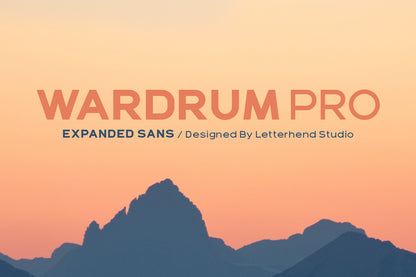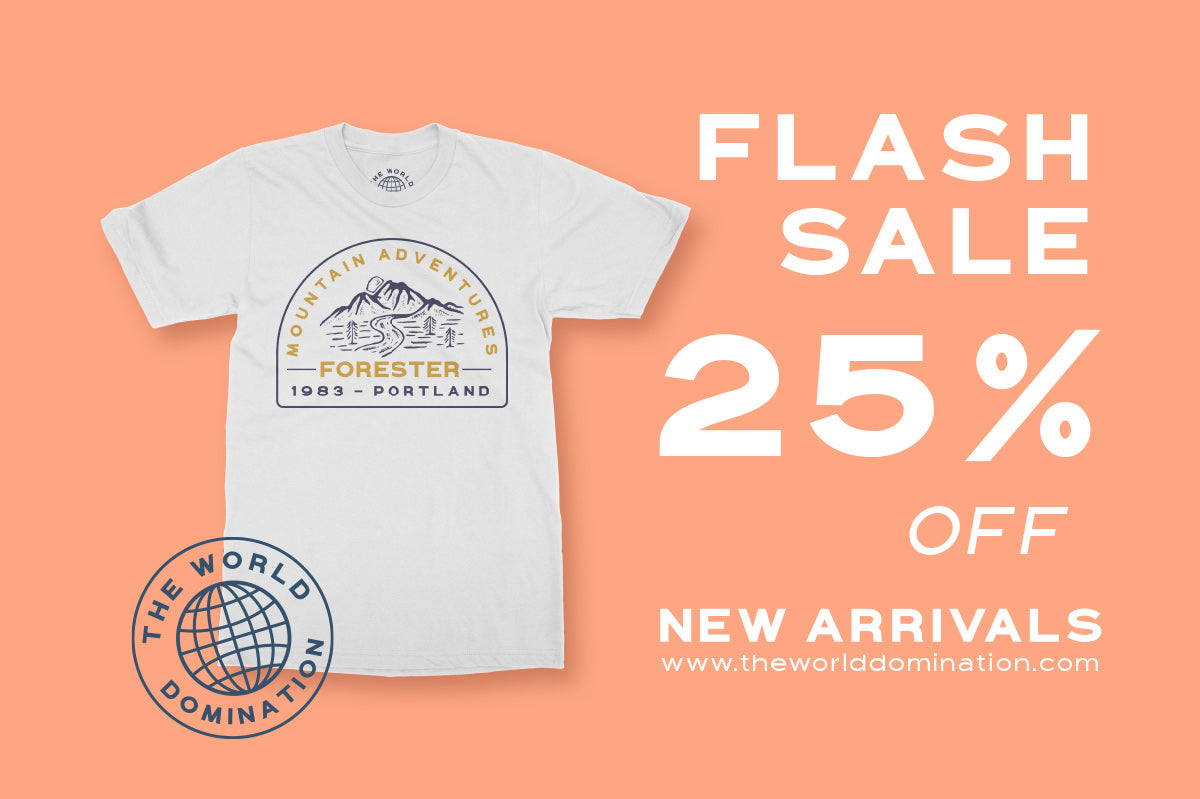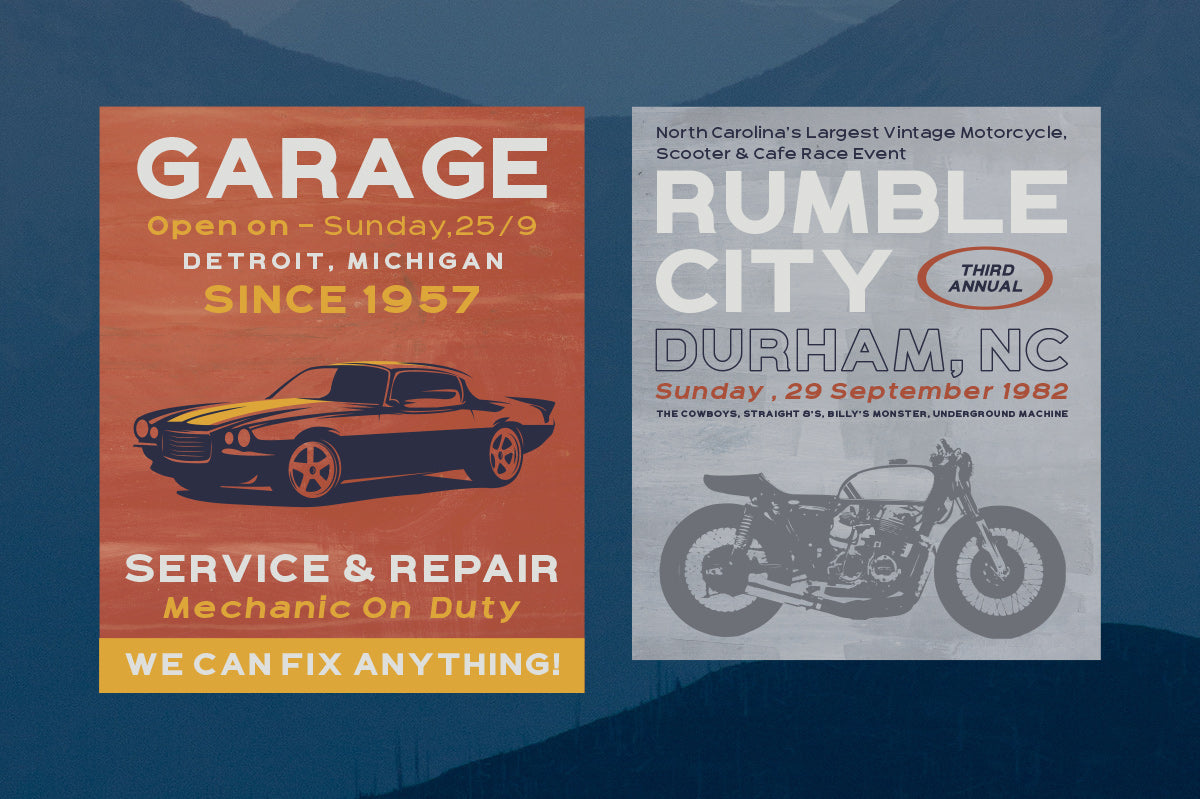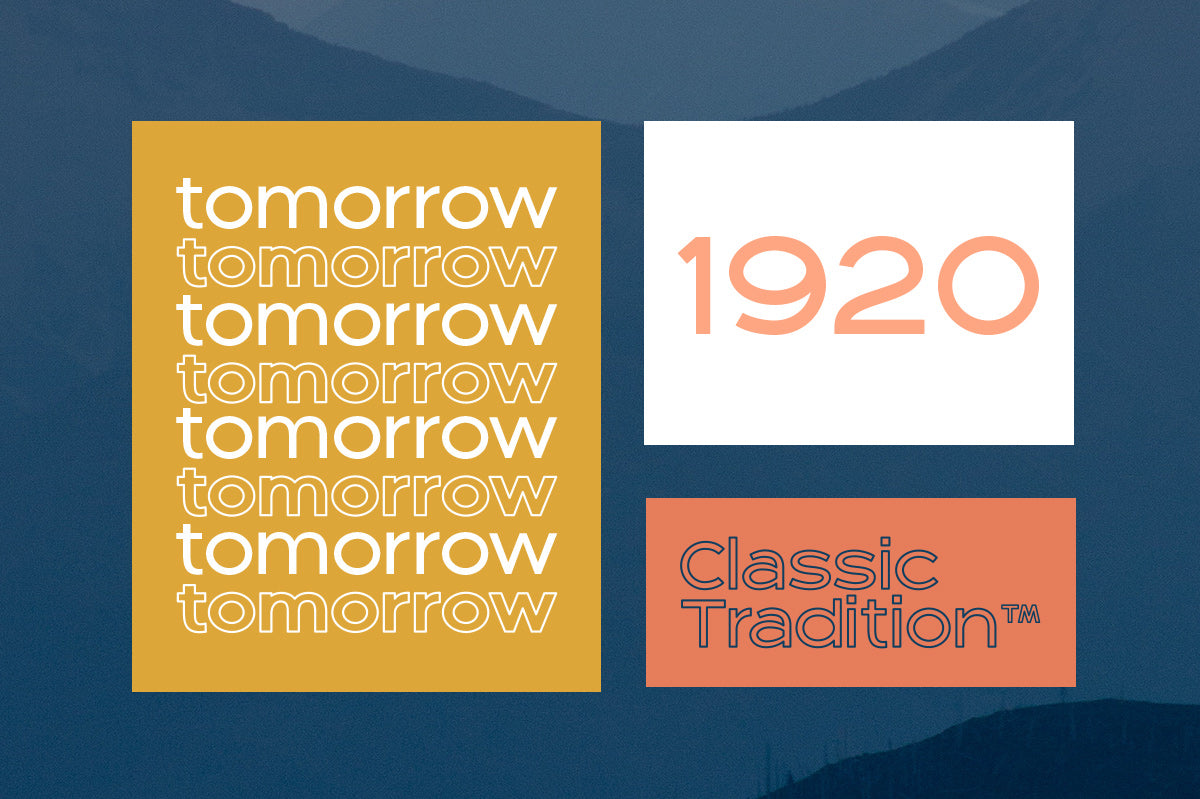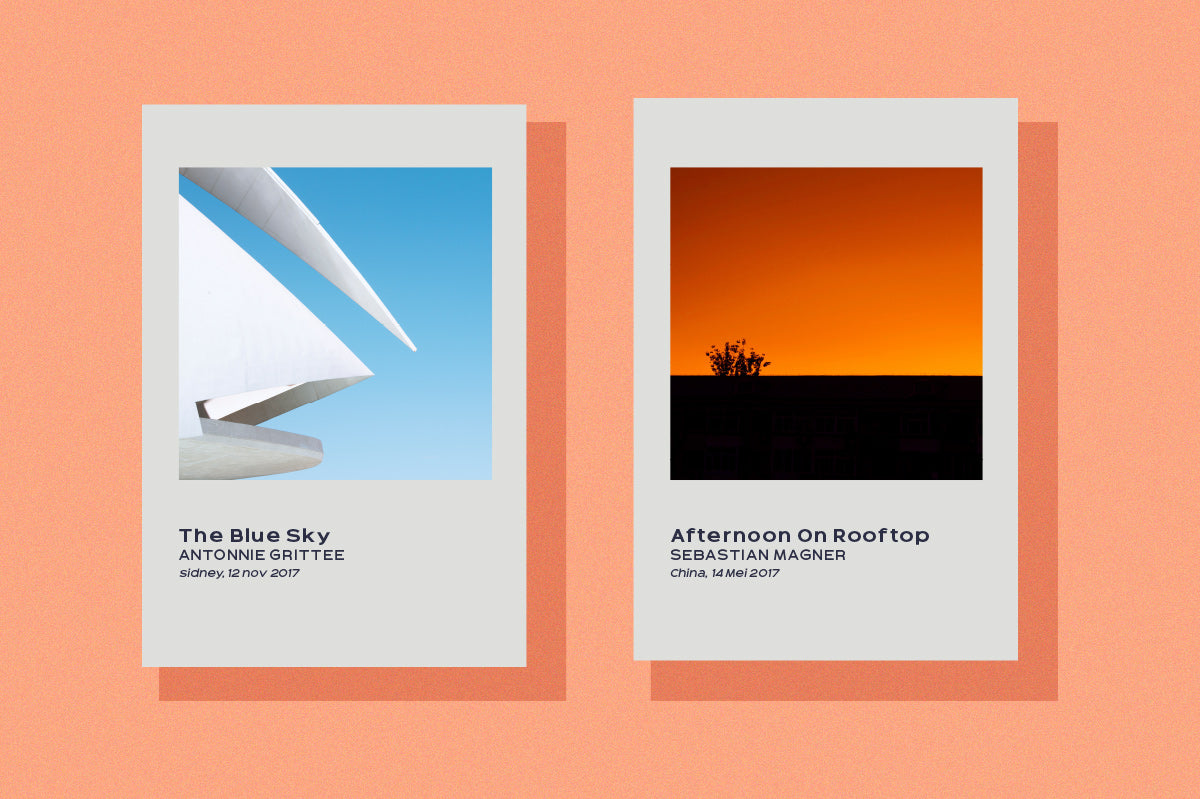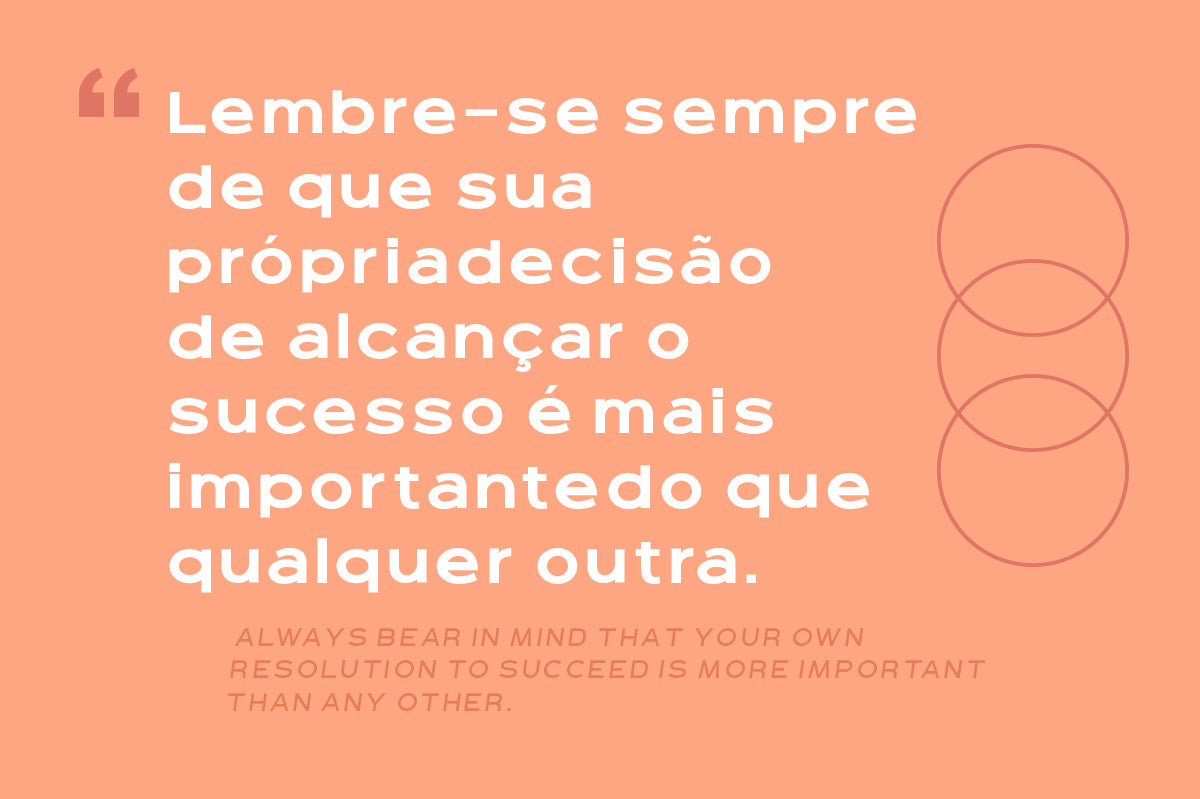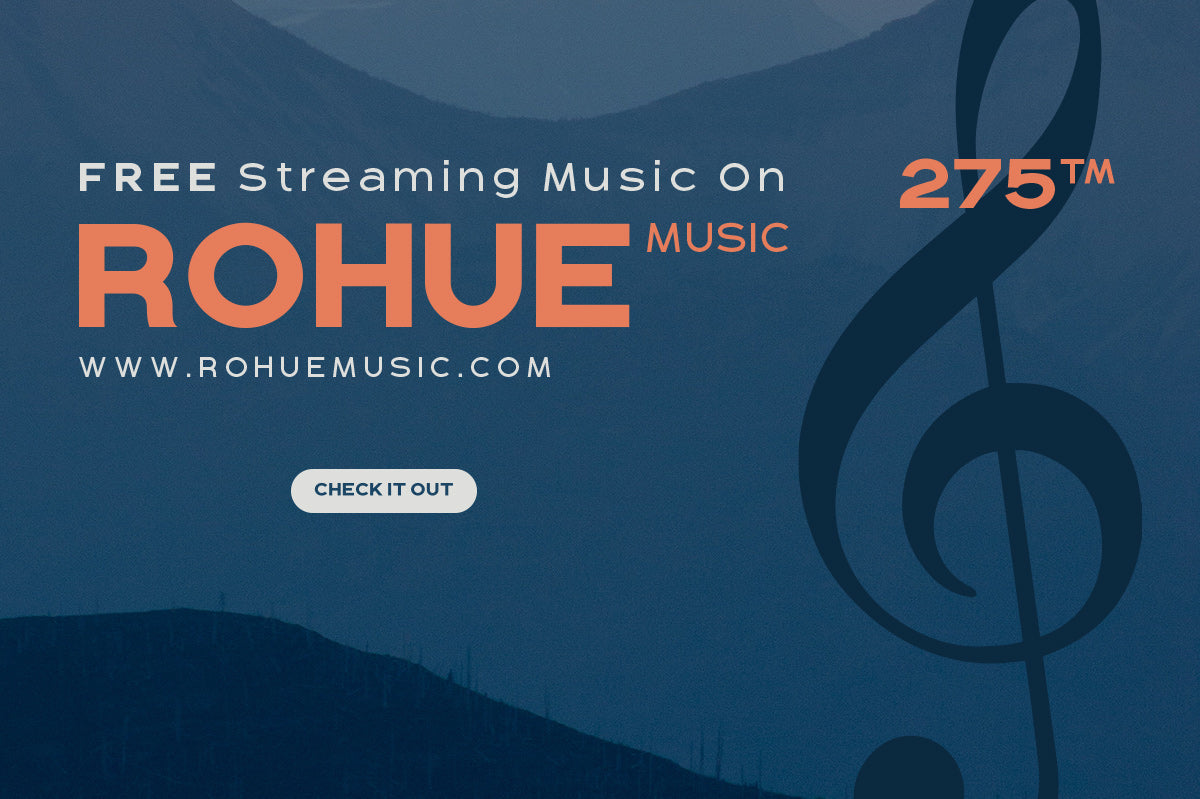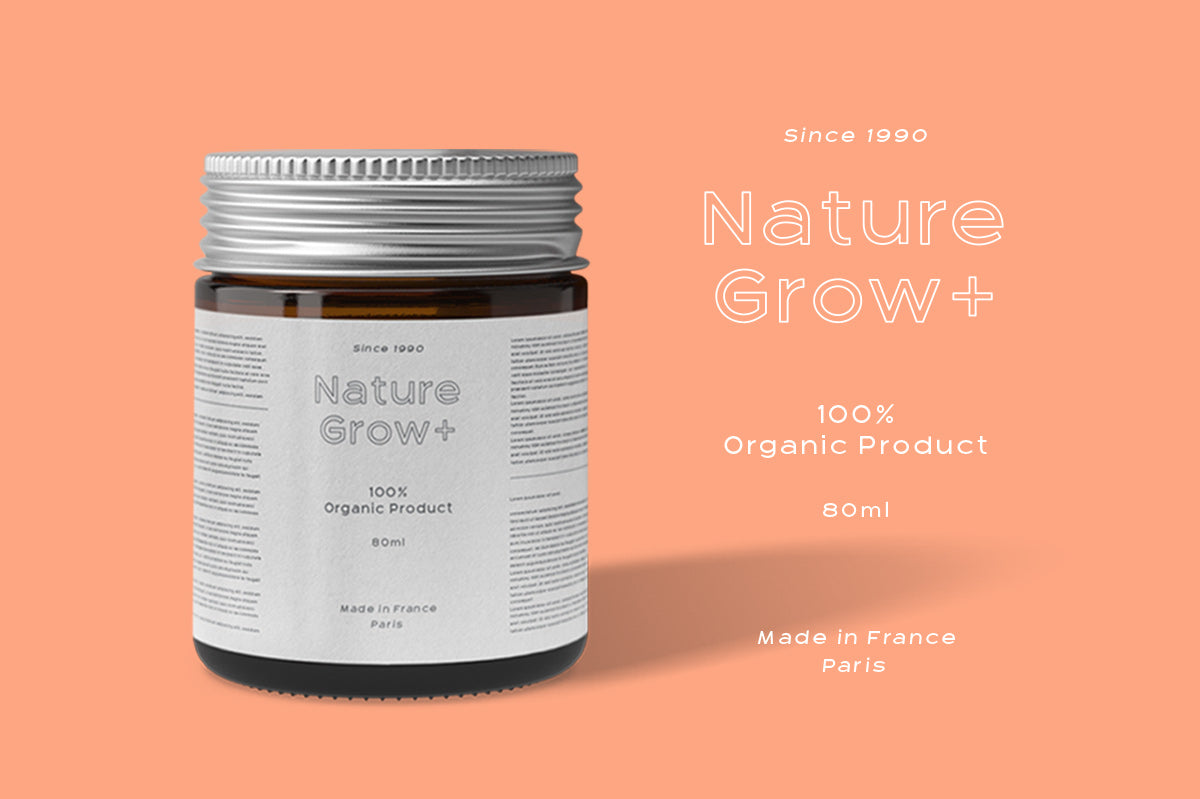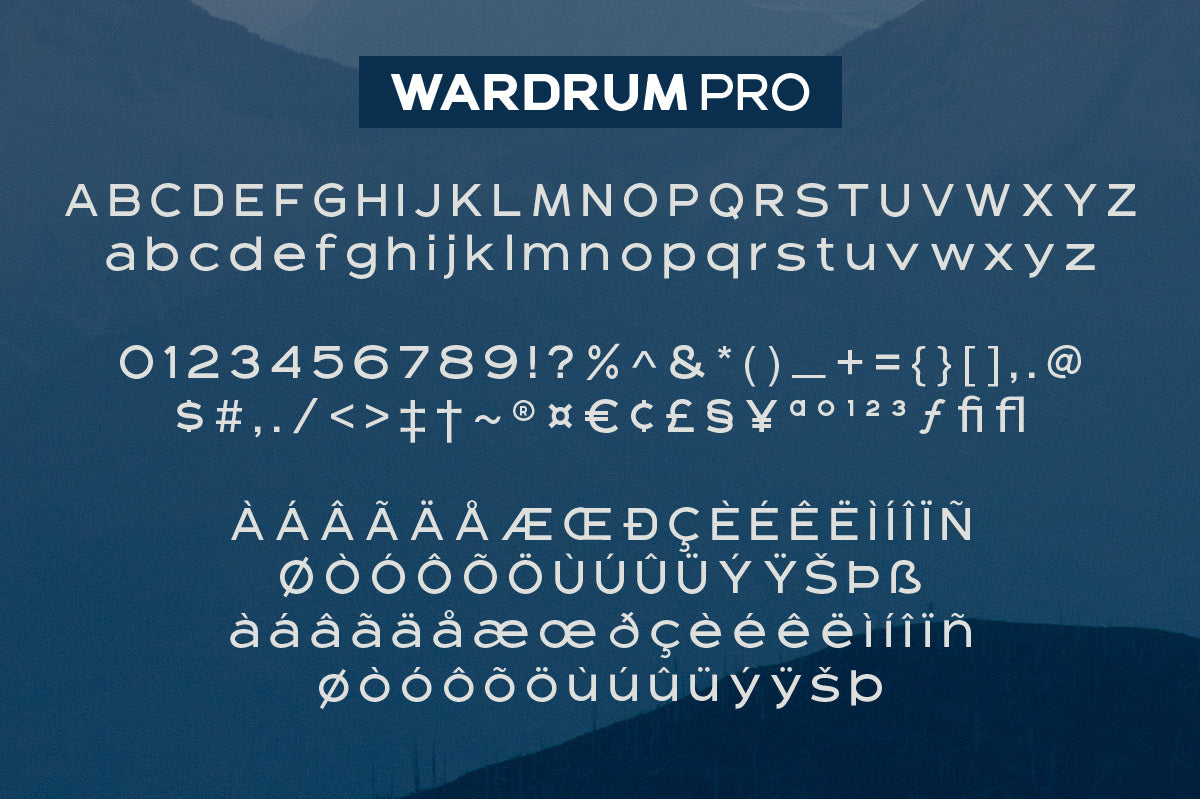
WARDRUM is an expanded sans with four styles. Use this font for your new project. Suitable for branding, posters, or your headline! This font contains uppercase only with numbers, symbols, punctuation, and also supports multiple languages!
Wardrum PRO